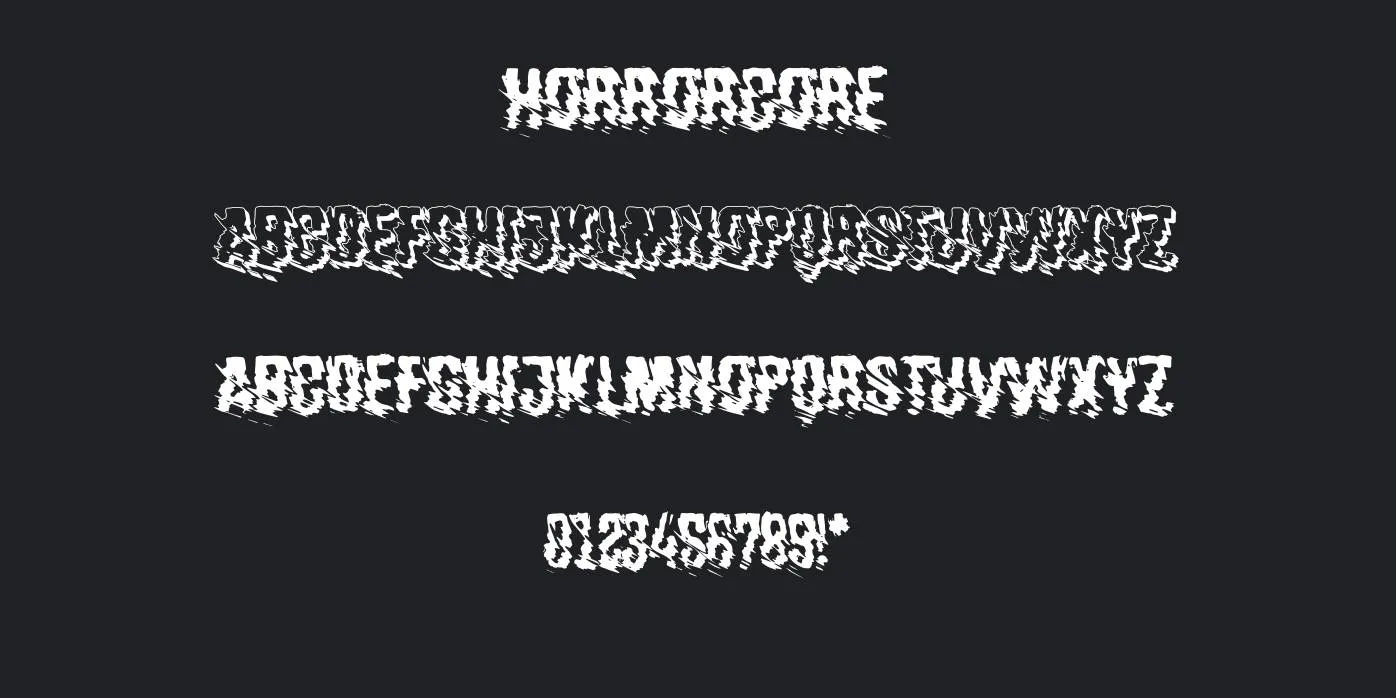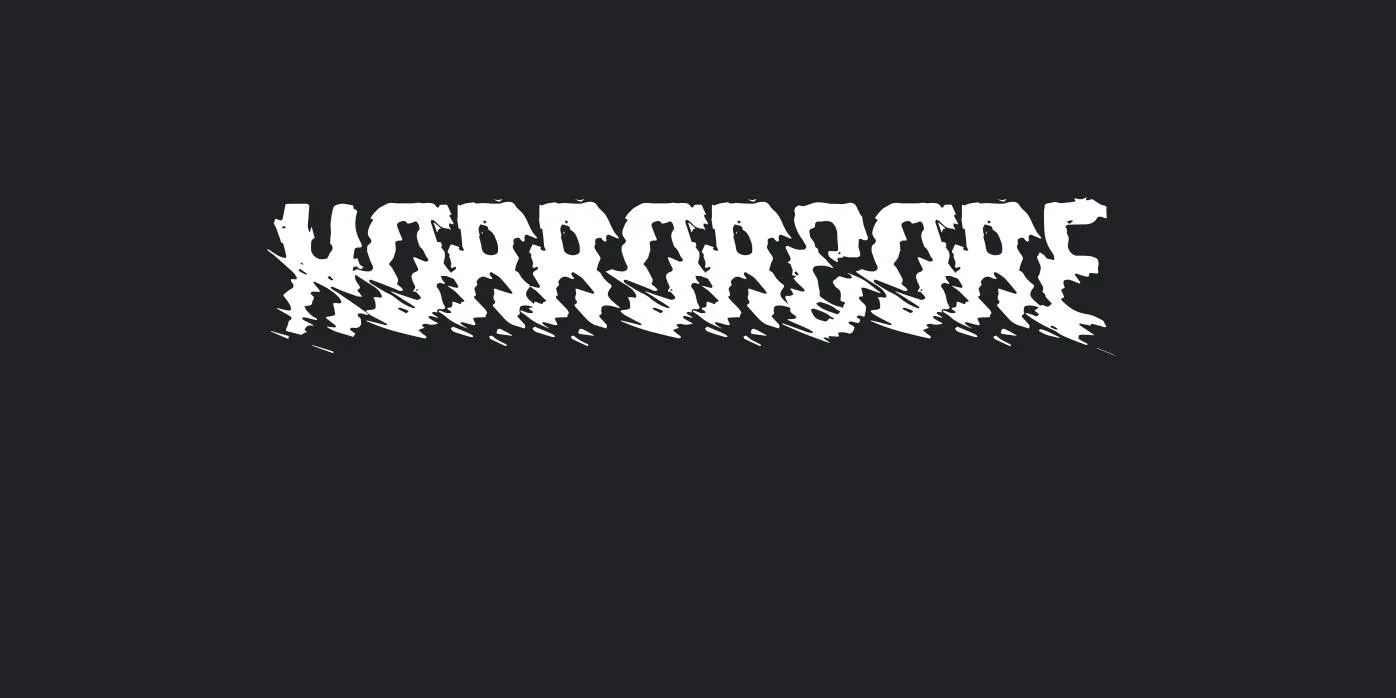
Horrorcore Font
Horrorcore Font is a fancy type of font that Th√©o d’Aigremont designs. There are 69 stunning glyphs for this font. The characters of this texture are a little bit scary. They support all capital, lowercase, numbers, and 3 special letters.